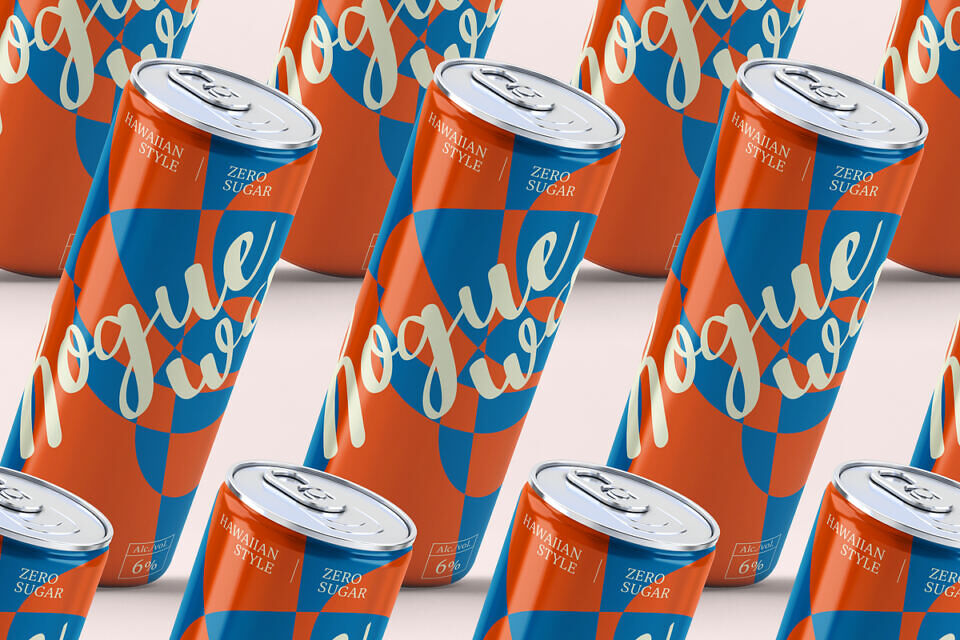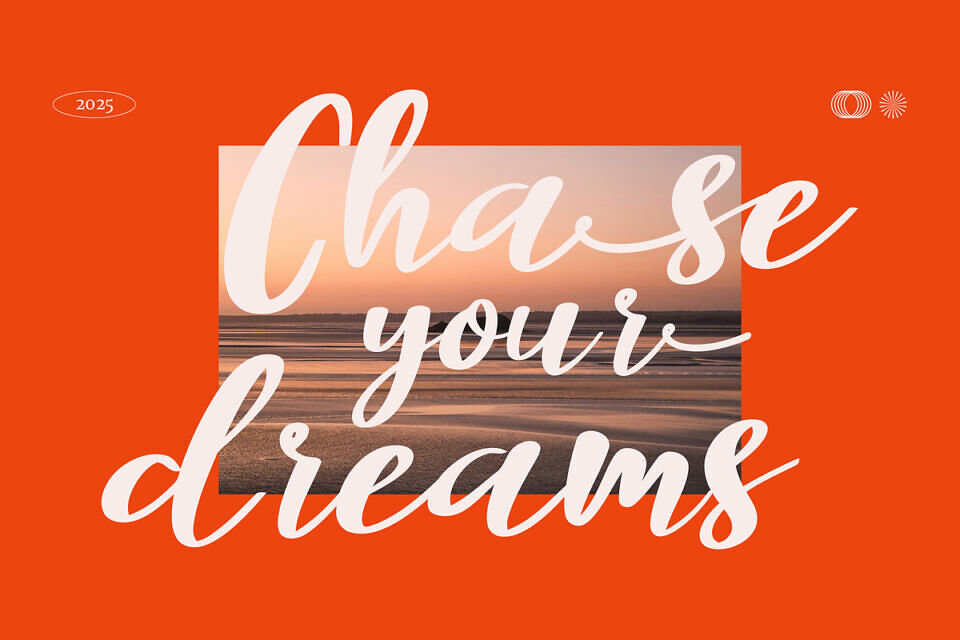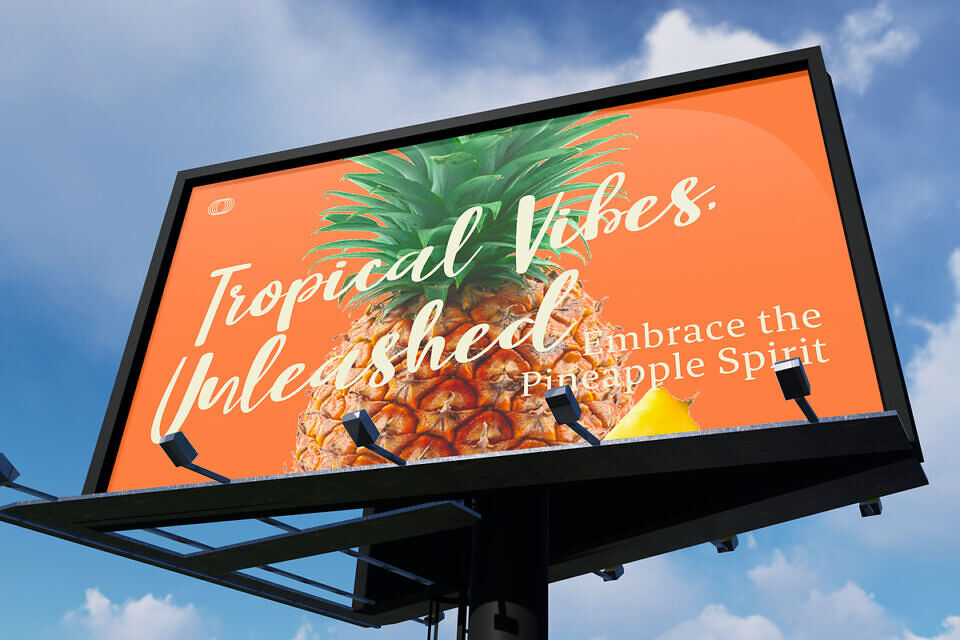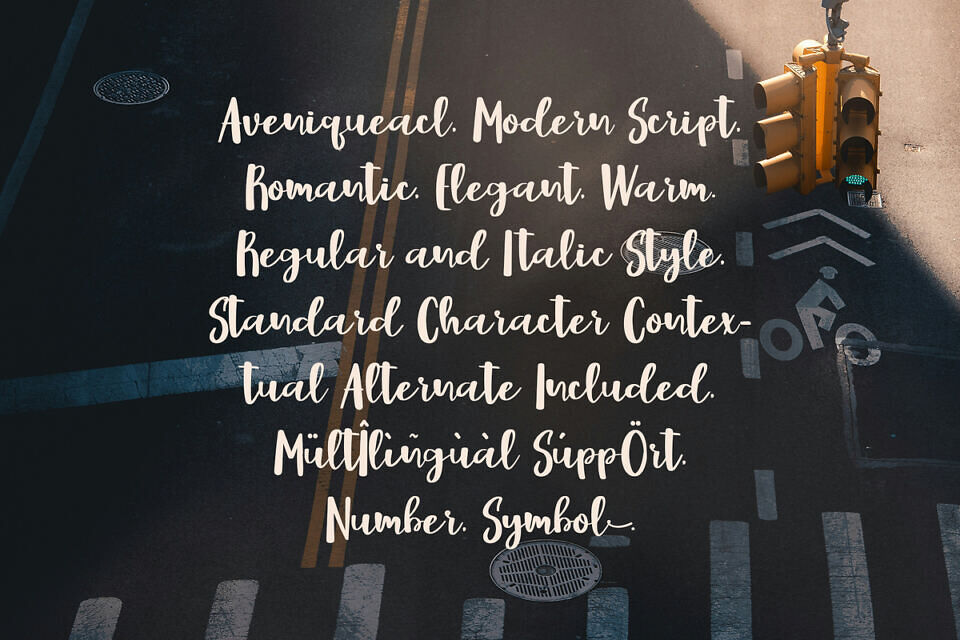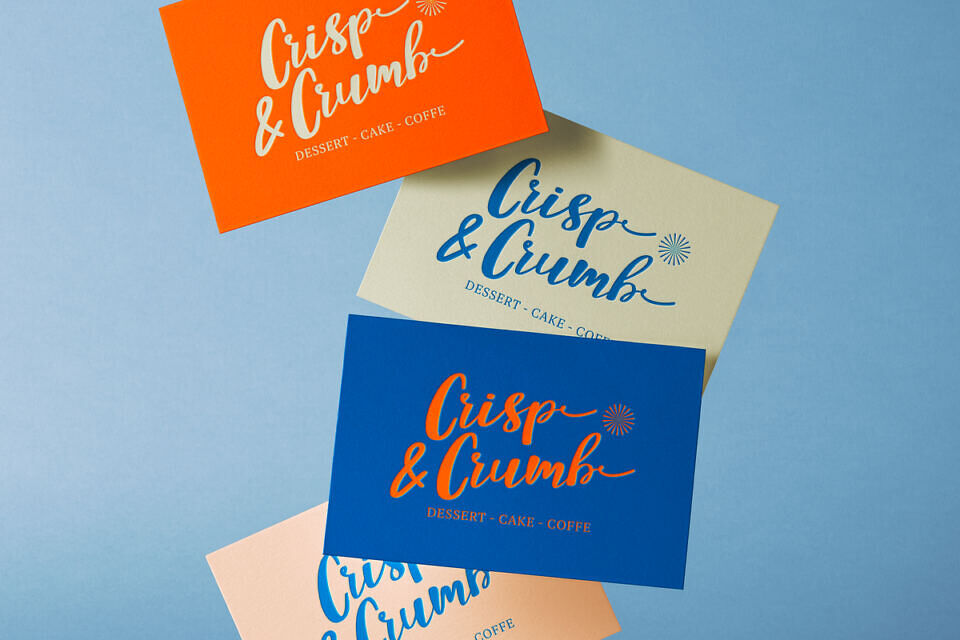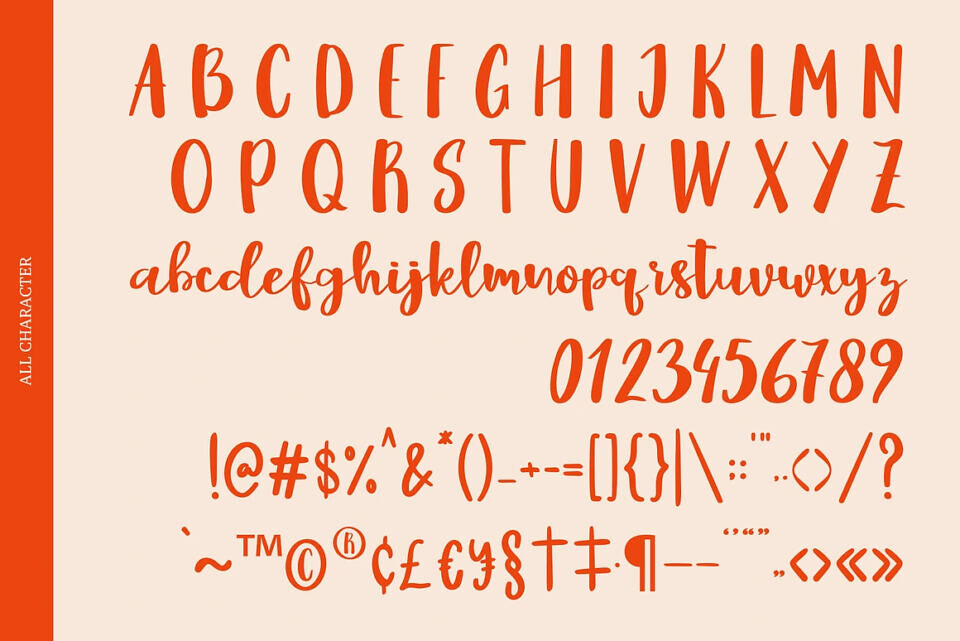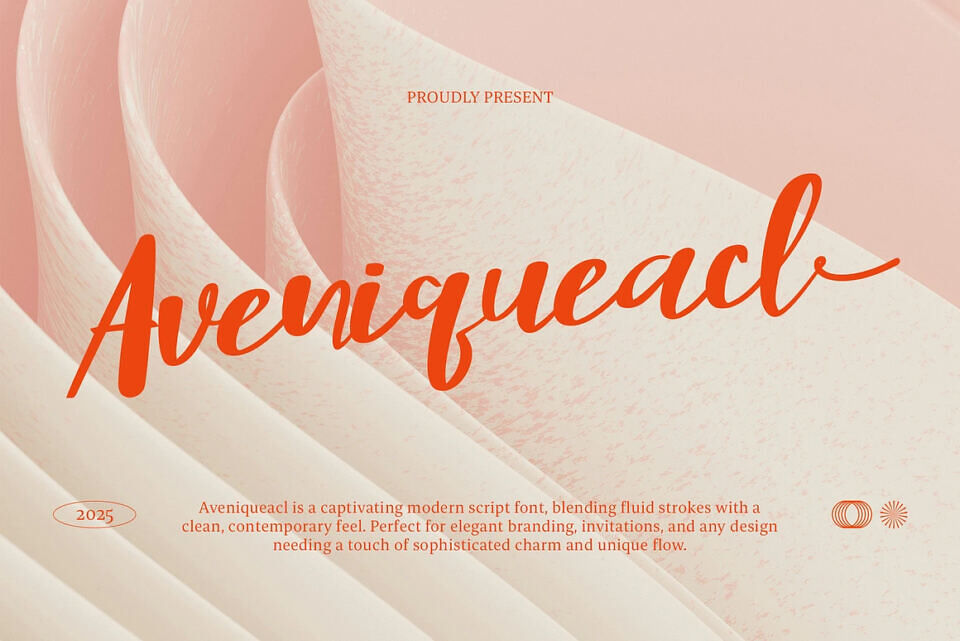
Cf Aveniqueacl Font
Aveniqueacl is a graceful and expressive modern script typeface that blends handcrafted elegance with contemporary design versatility. Every curve has been carefully drawn to convey sophistication, while its flowing connections ensure a seamless reading experience that feels both natural and refined.
The letterforms feature balanced proportions, gentle swashes, and smooth transitions, making Aveniqueacl ideal for applications where elegance and personality go hand in hand.
Perfect for branding projects, wedding stationery, social media graphics, product packaging, or editorial layouts, Aveniqueacl offers timeless beauty for both digital and print design.